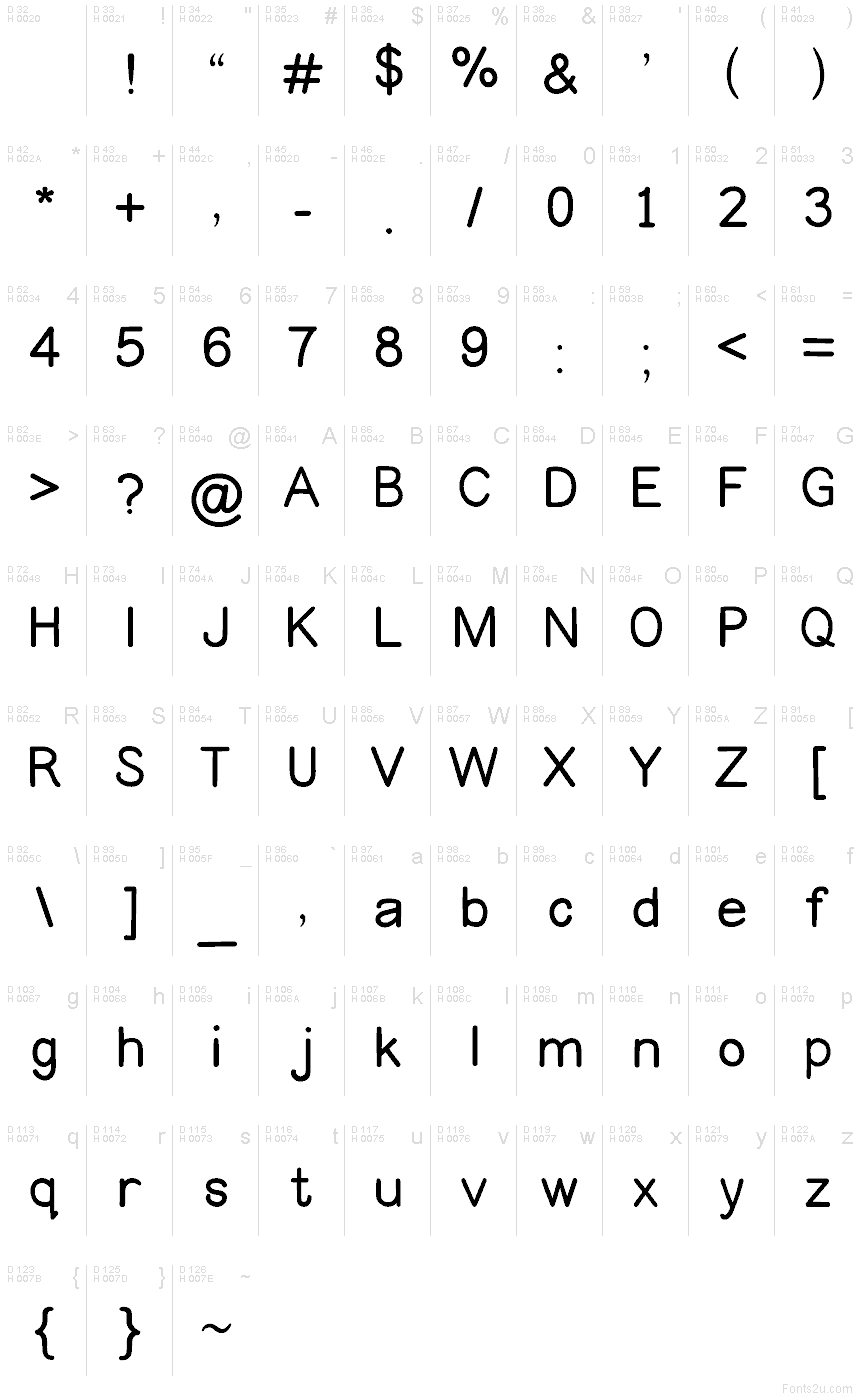
Summer Sans II LH
Summer Sans II LH font by Leon Hatcher is a free rounded sans serif typeface. Part of the Summer Sans family, it has that relaxed, handwritten ease but stays clean and orderly, with softly padded curves and steady stroke widths that feel friendly without slipping into cutesy. Letters sit close and even, giving text a smooth, continuous texture that’s easy to scan on screens and in print.
Using Summer Sans II LH, you get a warm voice that still handles longer copy comfortably, so it works beautifully for children’s books, casual app interfaces, product packaging, friendly brand identities, posters, and social media graphics. This free font really shines when you keep sizes slightly larger than a strict text face and pair it with a more neutral sans for captions or small-print details.